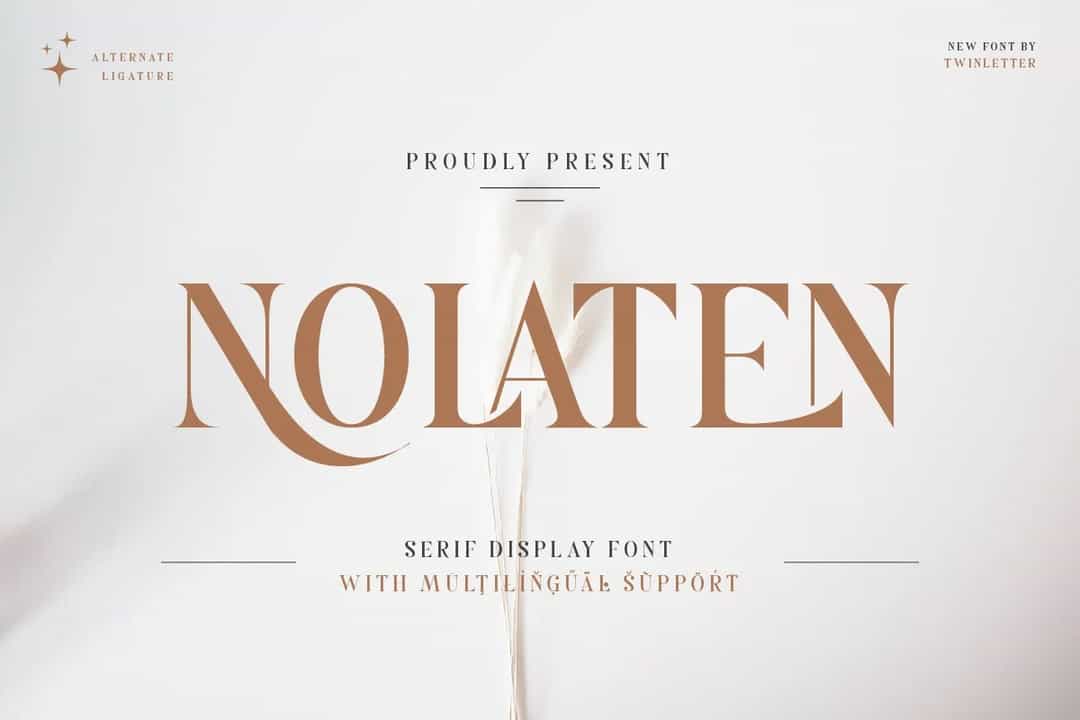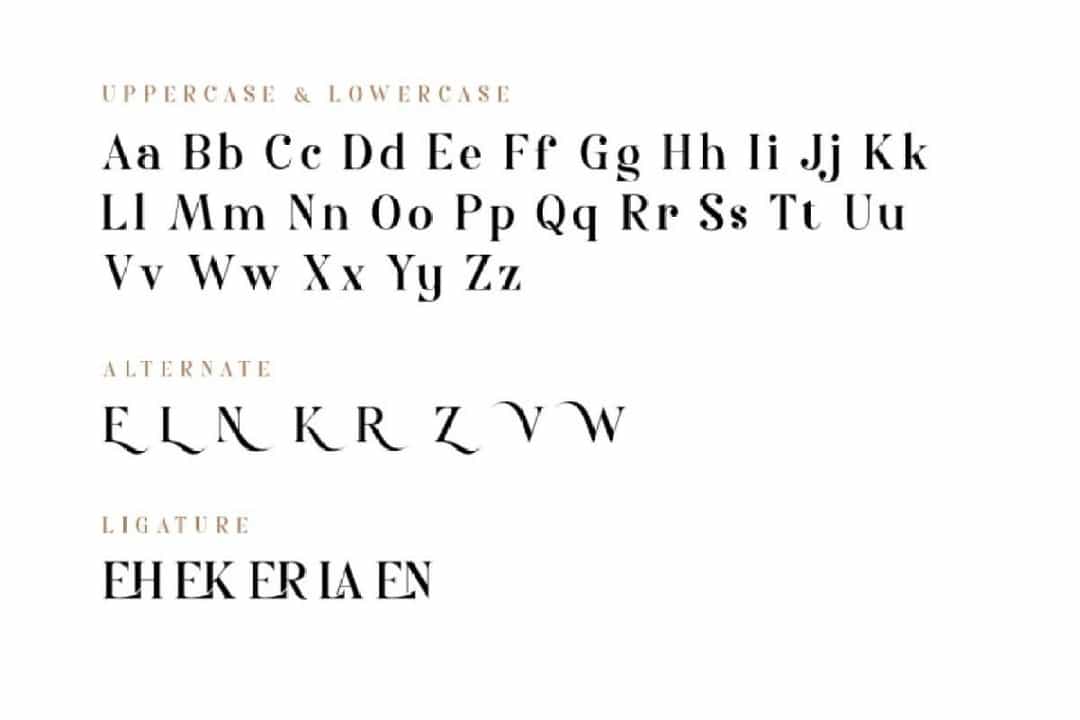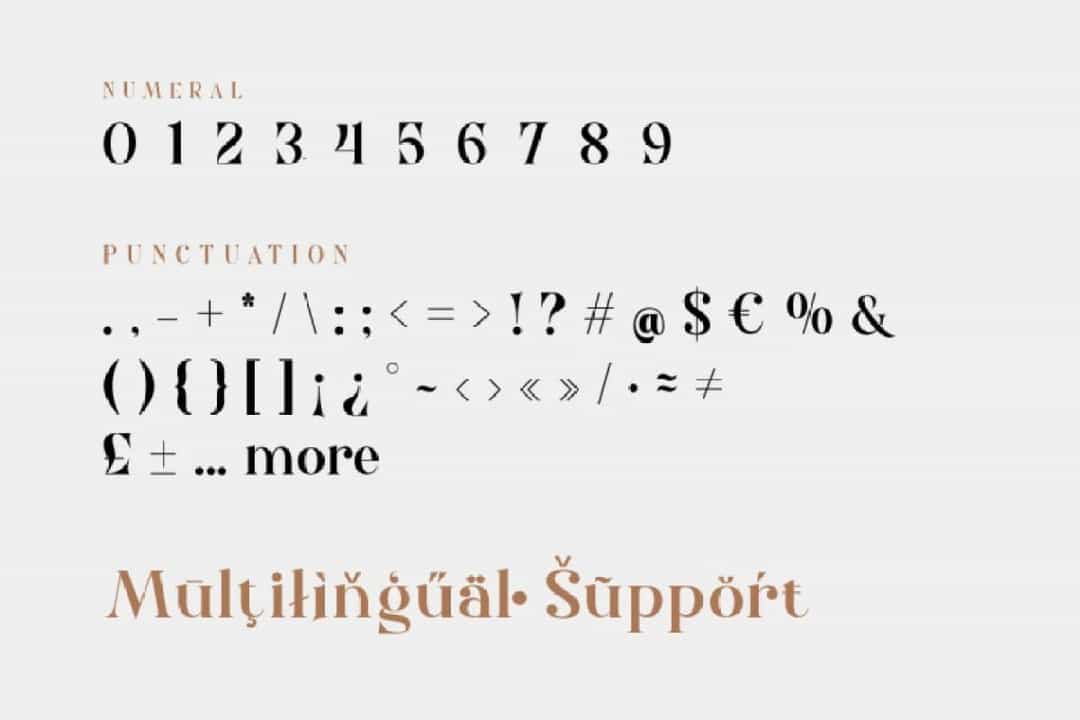
Nolaten is a serif font type specifically designed for display purposes and has a touch of old school elegance. The perfectly symmetrical shapes of its figures and thin lines give it a great number of potential uses in the field of graphic design. Whether it is designing a logo for a luxury car or coming up with a catchy headline that would grab the attention of the readers, Nolaten brings that extra touch of class.